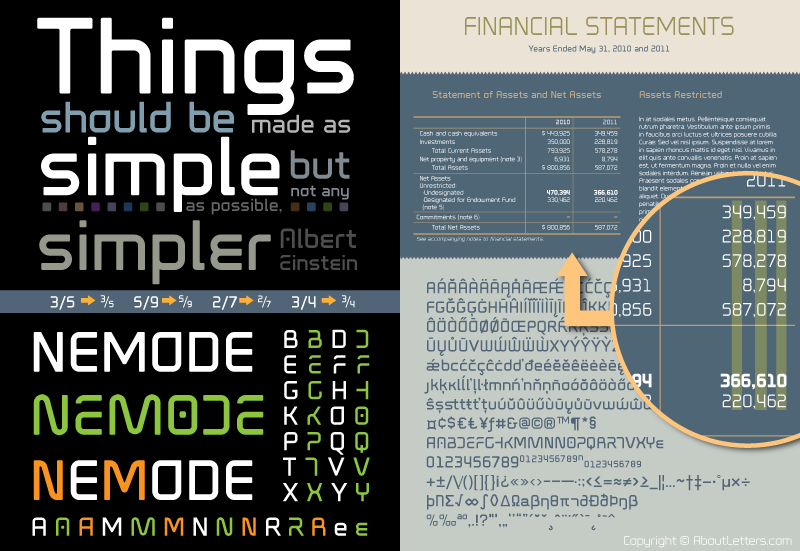
(It's a demo version and does not include all glyphs. Demo version is not allowed for commercial use.) Nemode is a geometric sans-serif display typeface. From industrial looking designs to business document, Nemode is one versatile font that you must have. Nemode can be used not only for titles, but also for body text. Nemode includes opentype features like fractions, kerns, as well as stylish alternatives. Some glyphs have more than one alternative. Numbers in the font Nemode are carefully spaced out allowing you to create a neatly organized document. There are total 6 fonts including three weights (light, regular, and bold), and their oblique families. To purchase the font(s), please visit www.aboutletters.com. |